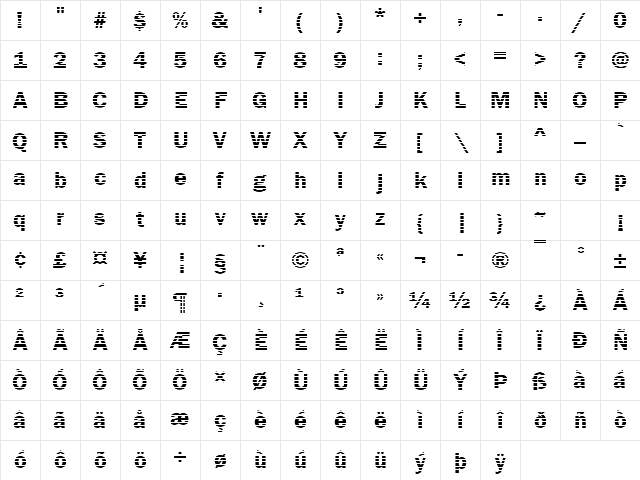
Complete DTCFranklinGotM02 Regular glyph index. Displaying only characters natively supported by DTCFranklinGotM02 Regular font.
DTCFranklinGotM02 is a composed and adaptable typeface that performs quietly and consistently across a wide range of design contexts.